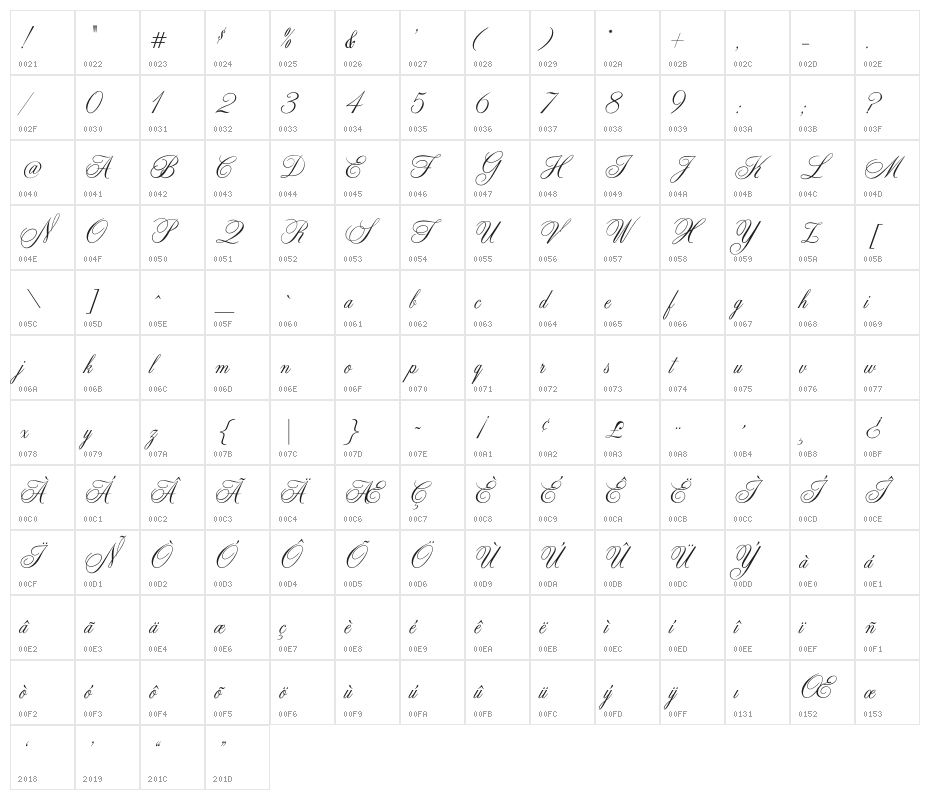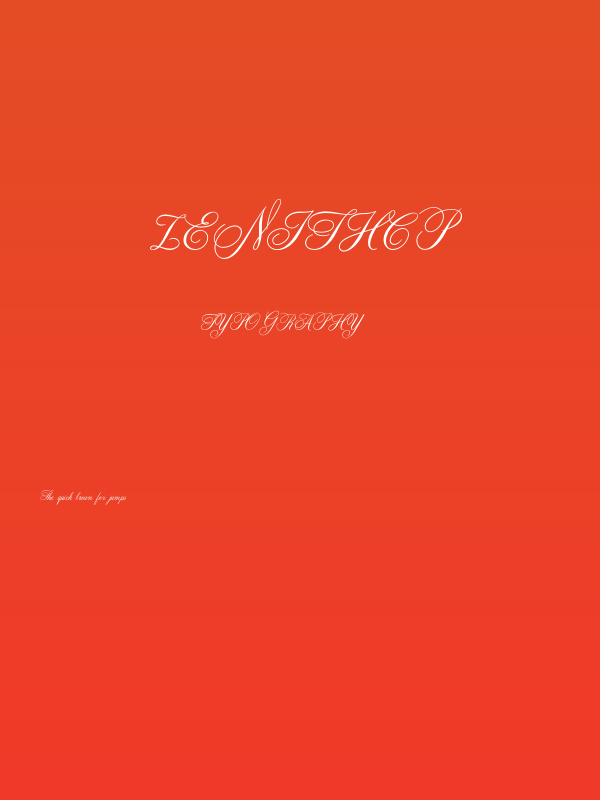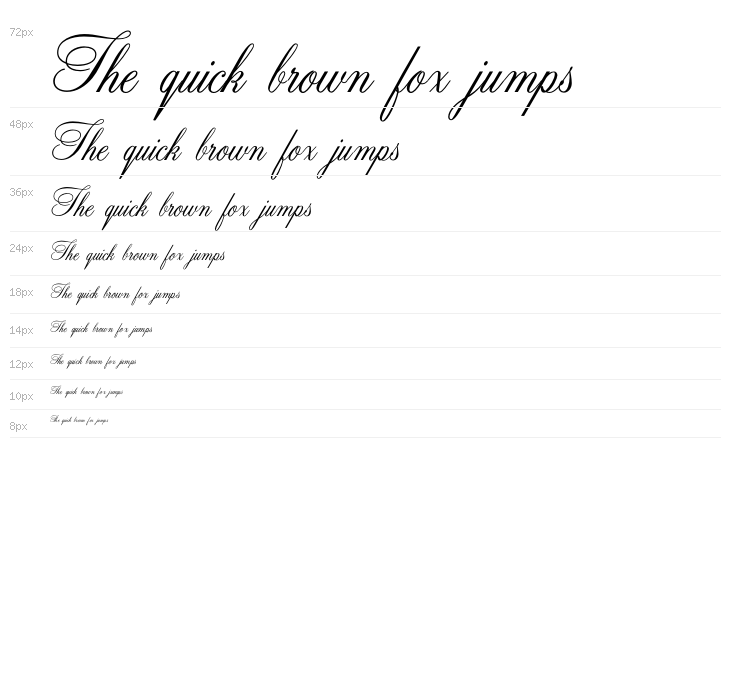
ZenithCP Font
✎ Script
| Kategorien | Script |
| Gesamtstil | Elegant |
| Anwendungsfall | Logos, Invitations, Branding |
| Vorgeschlagene Projekte | Ideal for wedding invitations, luxury branding, elegant stationery, and high-end product packaging. |